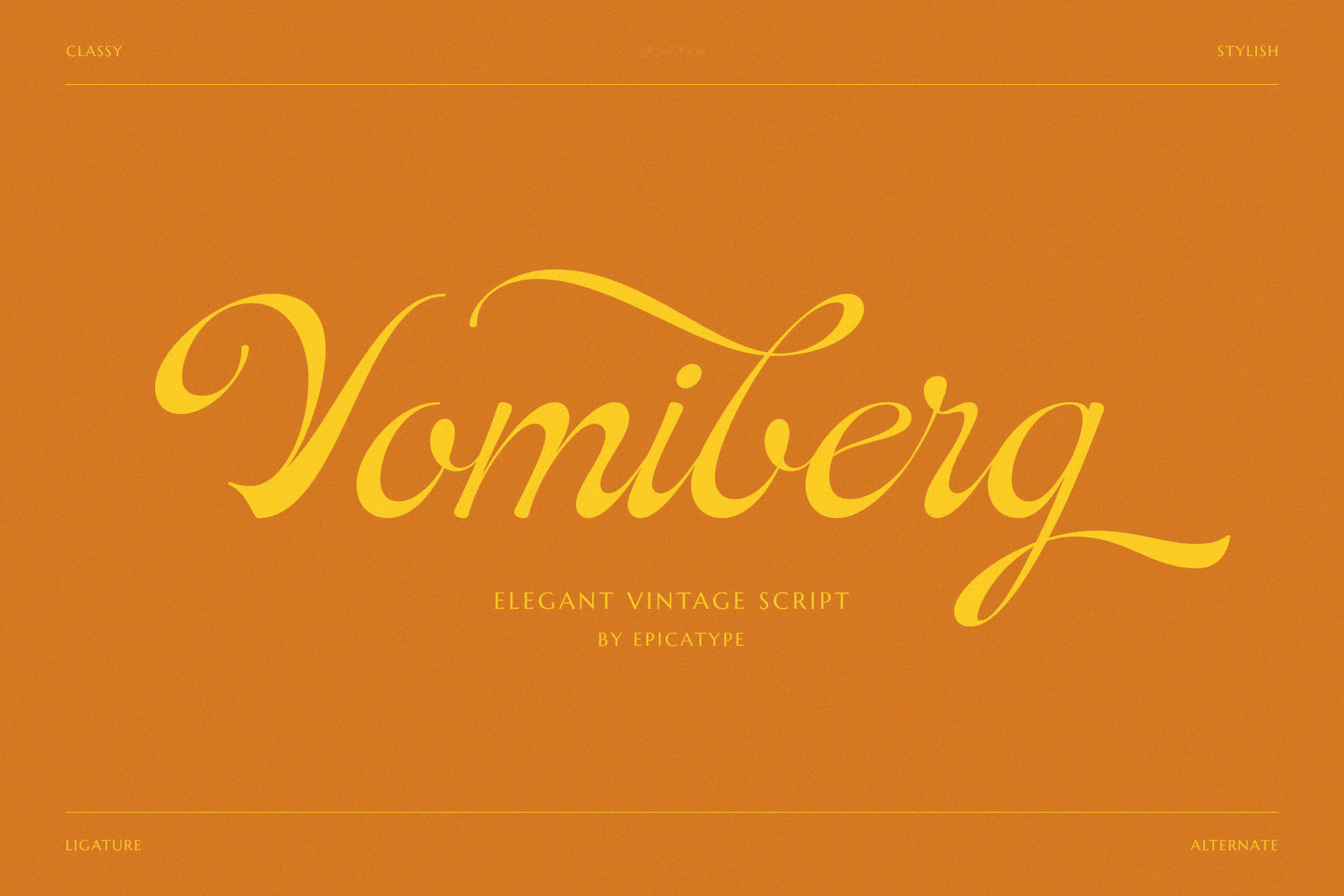
Vomiberg || Retro Script Font
Hello, new Retro Script called Vomiberg!!! Vomiberg is a stylish and classy script font works great for logos, magazine, social media. It come with a unique lower and uppercase plus numbers, punctuation & multilingual letters, alternates and ligatures.